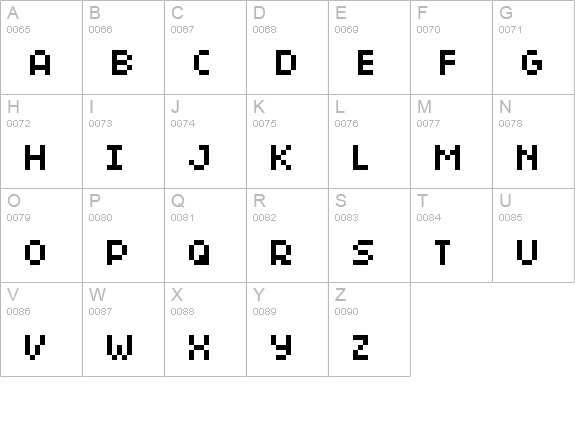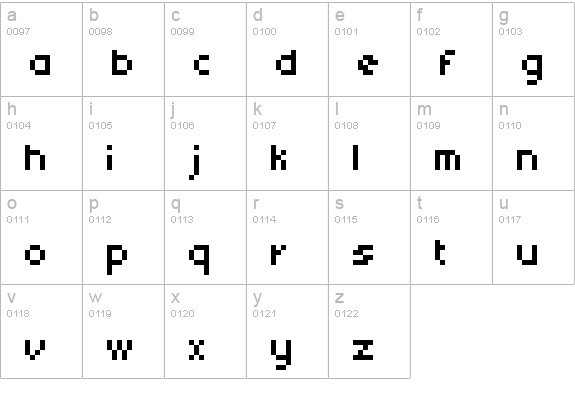
04b 03 font is a modern and sleek typeface that exudes a futuristic and tech-savvy vibe. Its clean lines and sharp angles make it perfect for digital projects, gaming designs, and branding materials. This font is versatile and can be used for both headings and body text, adding a touch of sophistication to any project. What makes 04b 03 font even more appealing is that it is completely free to download at FontsMarket.com. This means you can access this stylish font without any cost, making it a valuable addition to your font library. With its bold and eye-catching appearance, 04b 03 font is sure to make a statement in any design project.